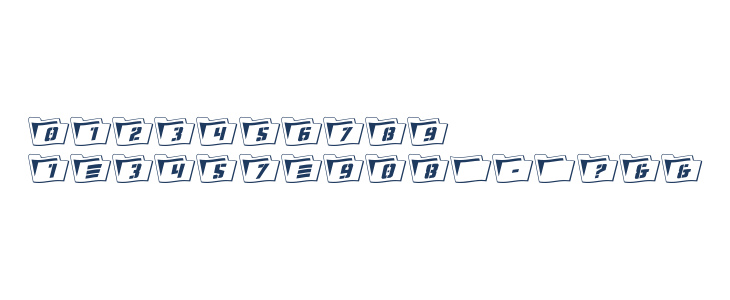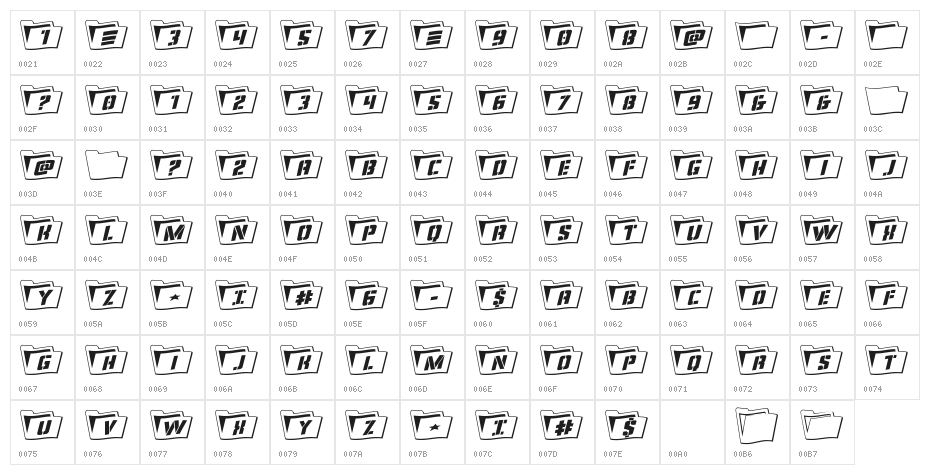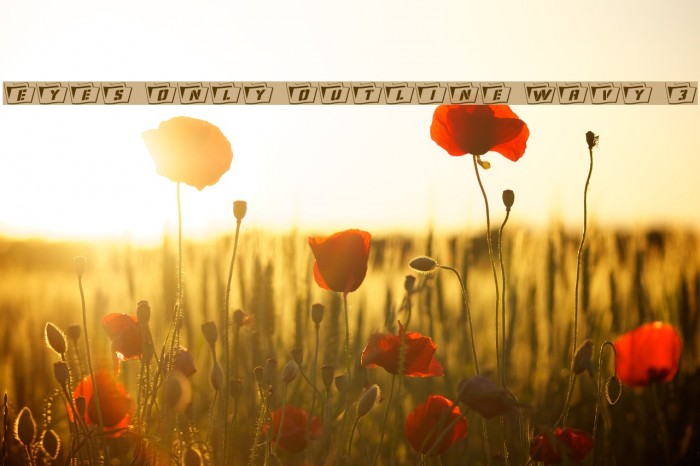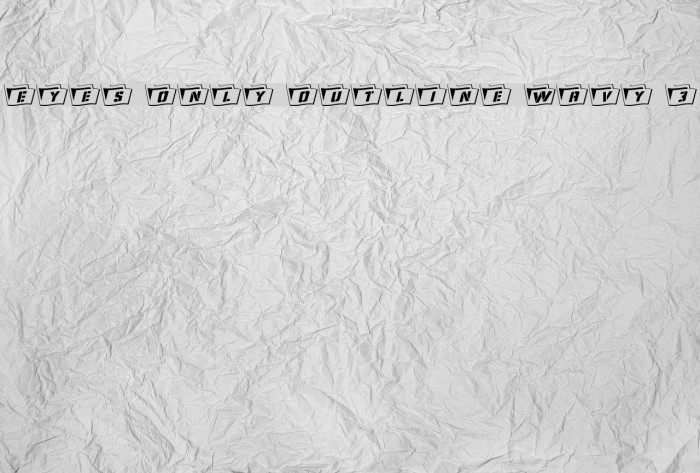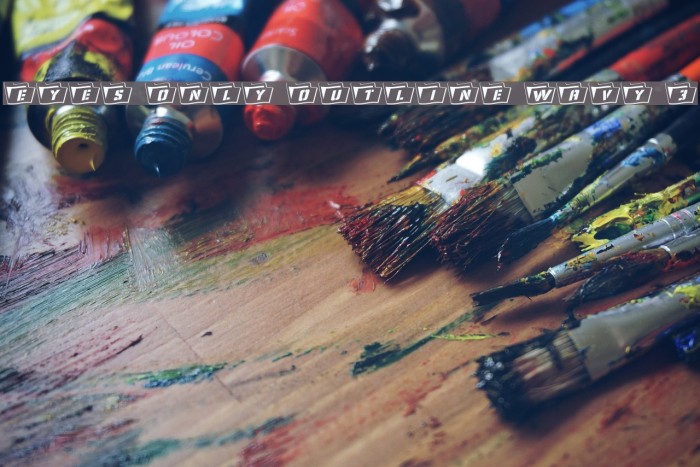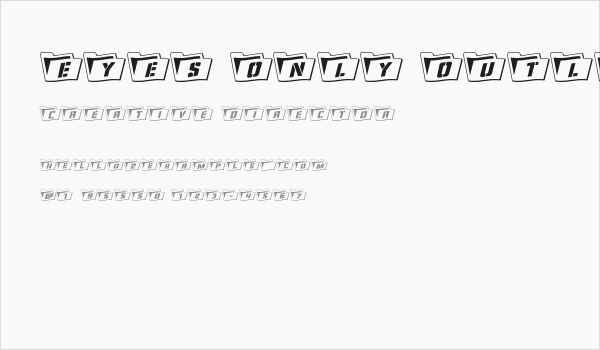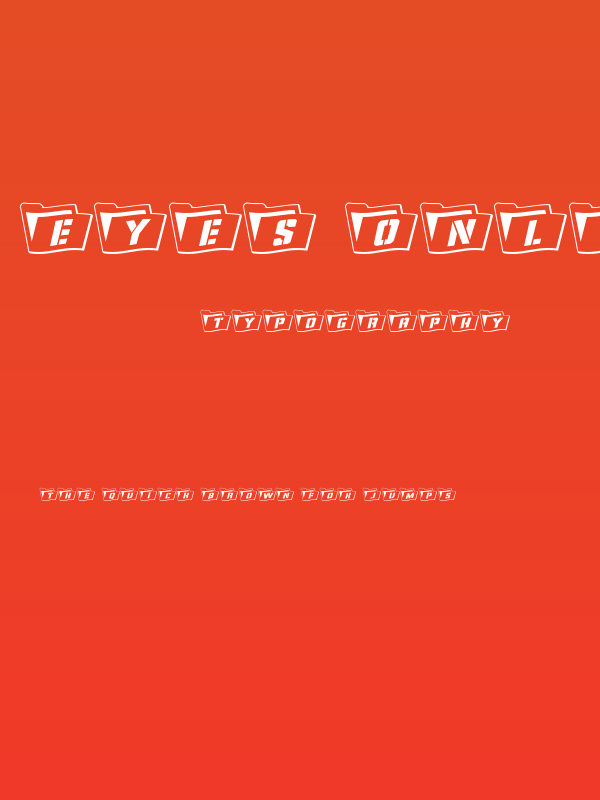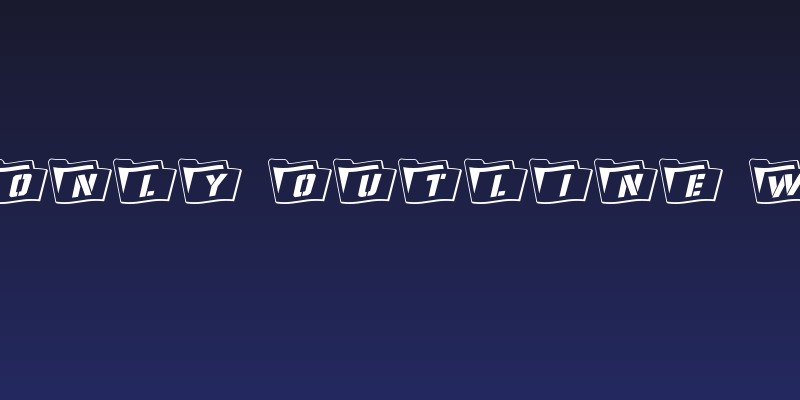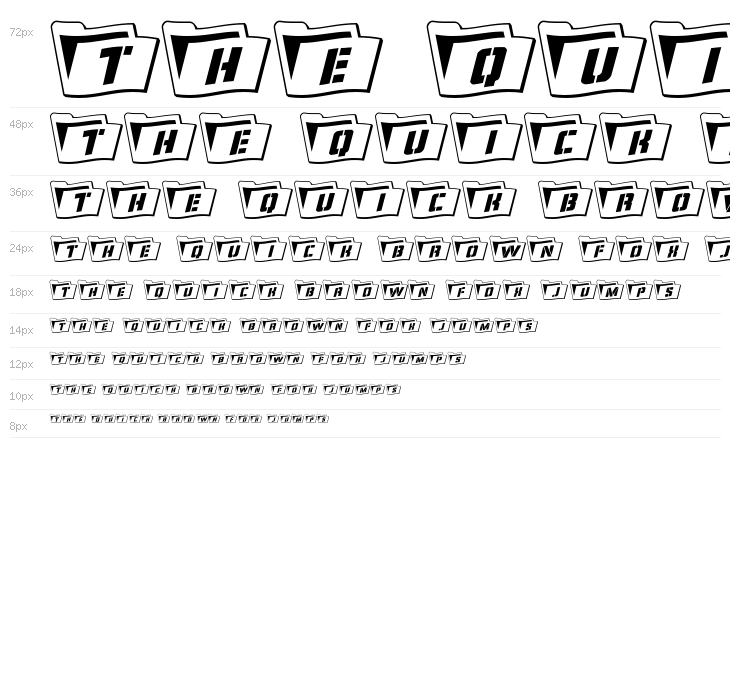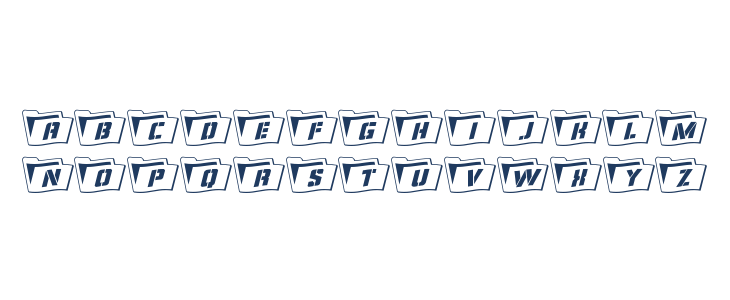
Eyes Only Outline Wavy 3 Font
Eyes Only Outline Wavy 3 Description
This font features a unique, wavy outline style that gives each character a dynamic and playful appearance. The letters are bold and angular, with a distinct shadow effect that adds depth and dimension. The uppercase and lowercase letters maintain a consistent style, while the numbers and special characters complement the overall design. The font's playful and eye-catching nature makes it suitable for creative and informal projects. Its distinct outline and shadow create a sense of movement, making it ideal for designs that require a bold statement.